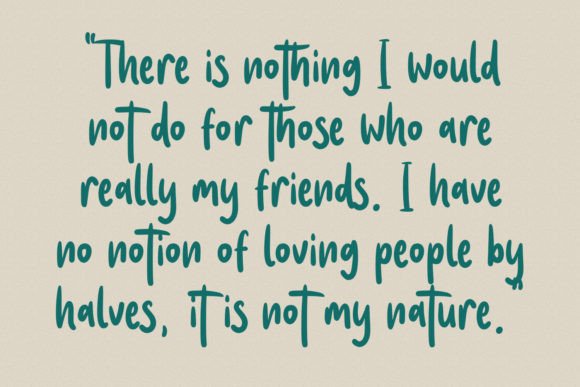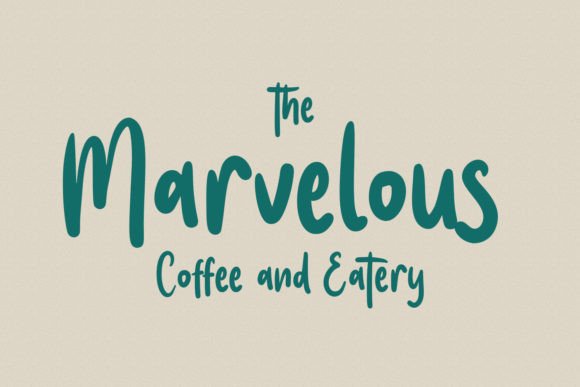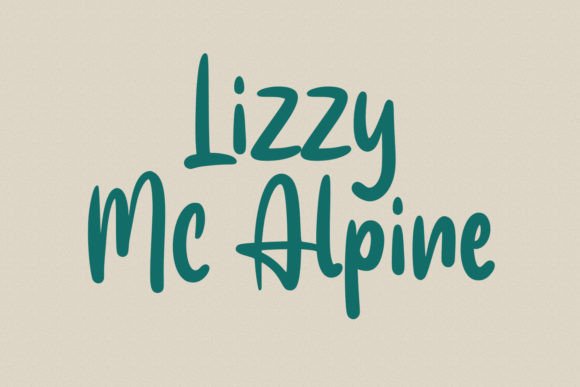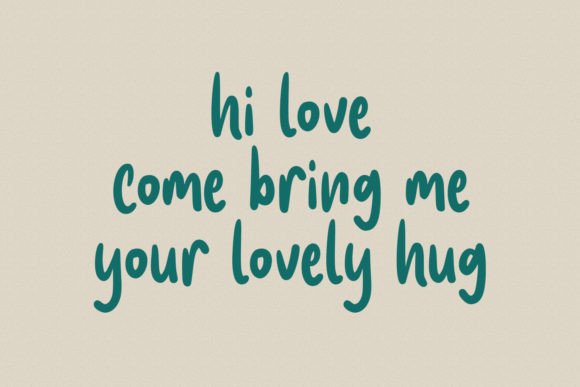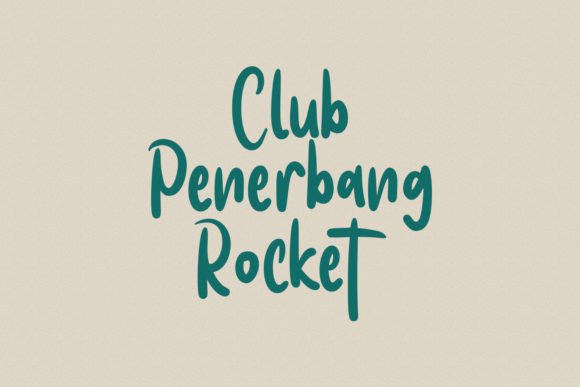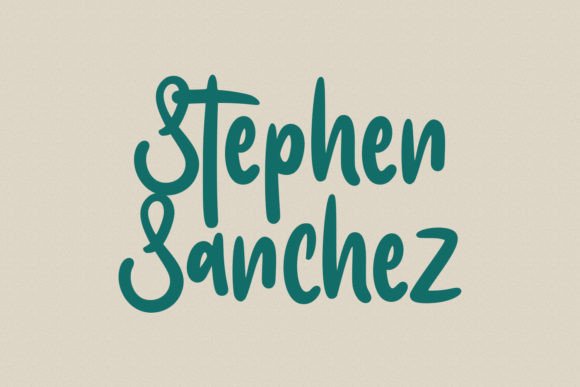
Introduction to Lostropis Font
Lostropis is a modern, smooth, and casual handwritten font.
It has beautiful and well-balanced characters and as a result, it matches a wide pool of designs Add it to your most creative ideas and notice how it makes them come alive.
Key Features of Lostropis Font
Why Choose Lostropis Font?
Lostropis Font offers exceptional quality and versatility, making it a valuable addition to your design toolkit. Whether you’re creating for personal projects or commercial use, Lostropis Font delivers professional results.